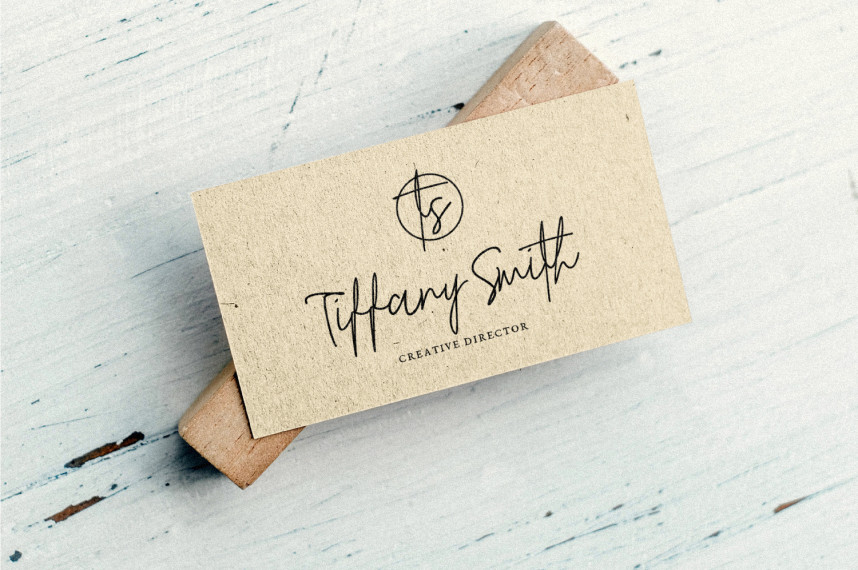
Signathy Font
Signathy Font is an elegant script font with charming letters. It will add a romantic touch to any crafting project! has a natural writing style and will add a classy touch to your designs. Includes in uppercase, lowercase letters, standard numbers and punctuation also multilingual support